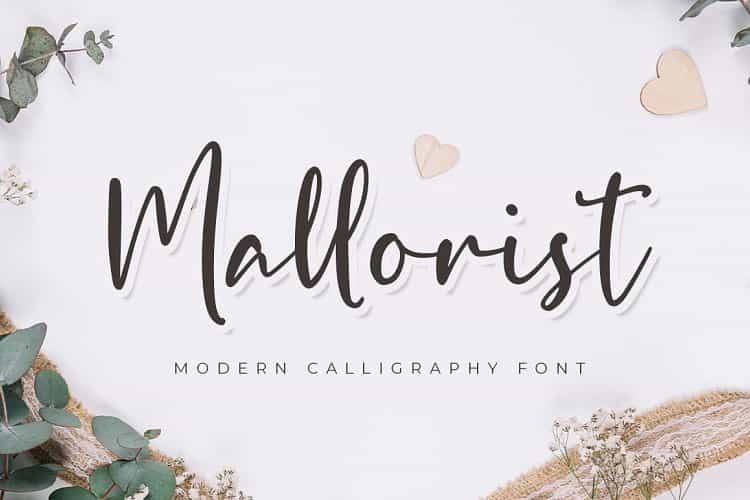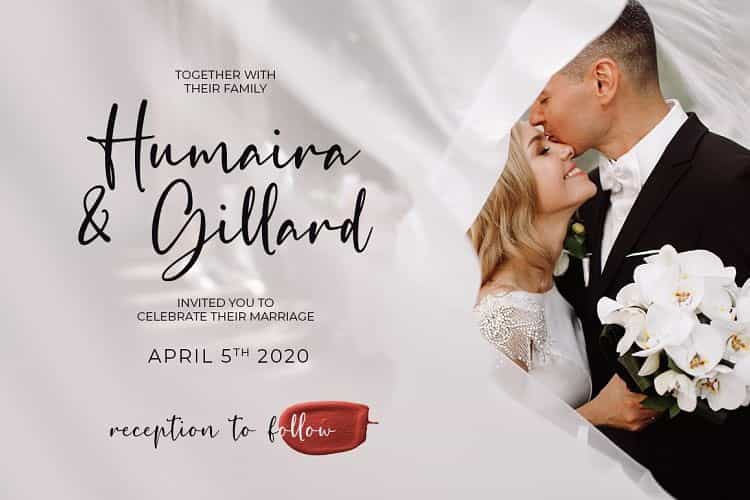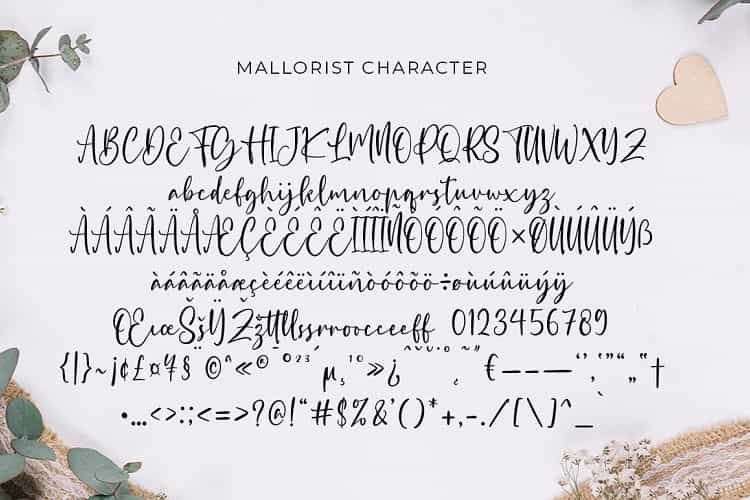
Discover Mallorist Modern Calligraphy Font, part of the Calligraphy Handwritten collection—a versatile and unique font perfect for adding a personal touch to your projects. Download it for free and enjoy crafting designs with style, from invitations to social media posts. This font is available exclusively for personal use, giving you the freedom to create without limits. Unlock your creativity with Mallorist Modern Calligraphy Font today!
Mallorist is a handwritten font which has the modern calligraphy style. This font is perfect for your next creative project such as logos, printed quotes, invitations, cards, product packaging and headers. Mallorist has uppercase letters lowercase numbers punctuations & support characters in different languages.